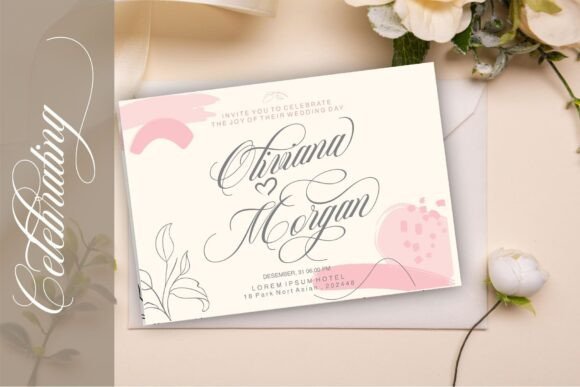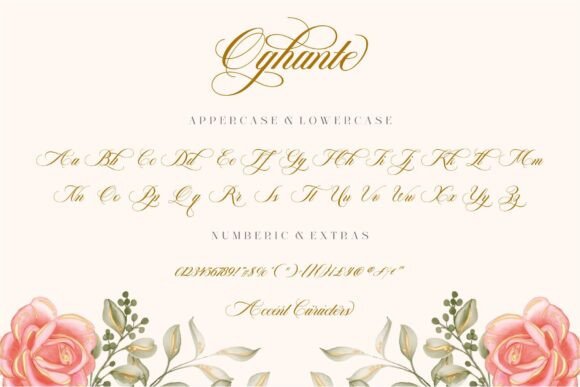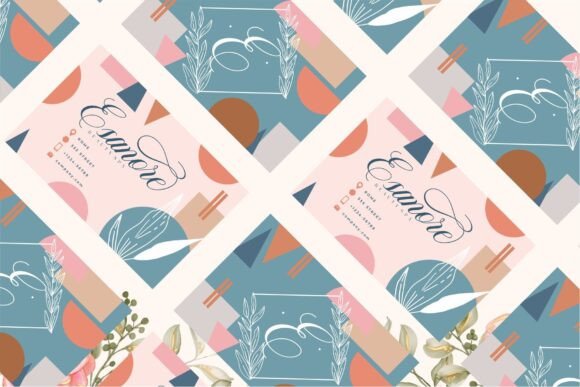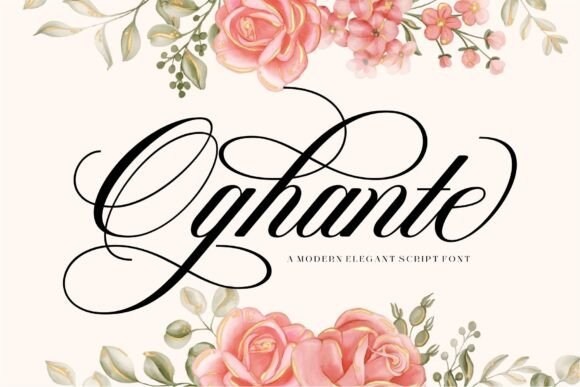
Introduction to Oghante Font
Oghante is a graceful handwritten font with a stylish and flowing design.
Its elegant, smooth lines make it perfect for adding a personal and sophisticated touch to invitations, logos, and special designs .